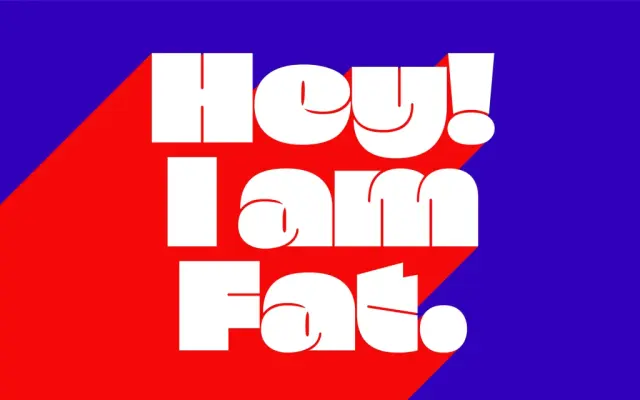
Fat
Black Foundry · Gaëtan Baehr, Li Yuxin
An ultra-black display sans covering Latin and simplified Japanese Kana, built for posters, album covers and headlines requiring maximum visual weight.
Designed by Gaëtan Baehr and Li Yuxin, Fat exists at a single extreme weight with three-dimensional detailing, integrated accents and ligatures included to aid usability at large sizes. The family supports both Latin and simplified Japanese Kana, making it usable for bilingual brand work across Latin and Japanese scripts. Arrows, pictograms and emoji round out a glyph set aimed squarely at loud, attention-demanding applications.
A single-weight ultra-black sans designed exclusively for headline use, with extreme stroke thickness and three-dimensional detailing that places it firmly in the display category rather than a general-purpose sans.